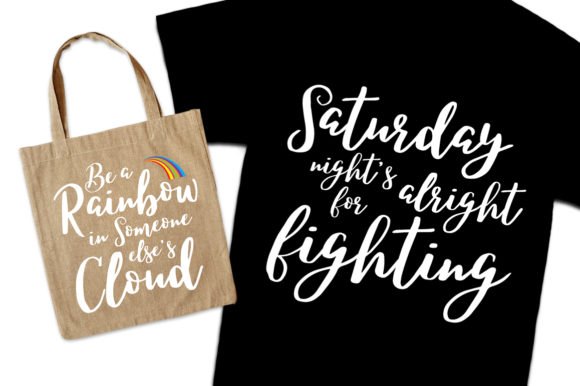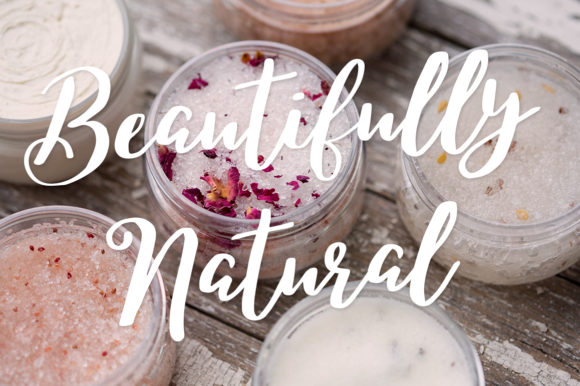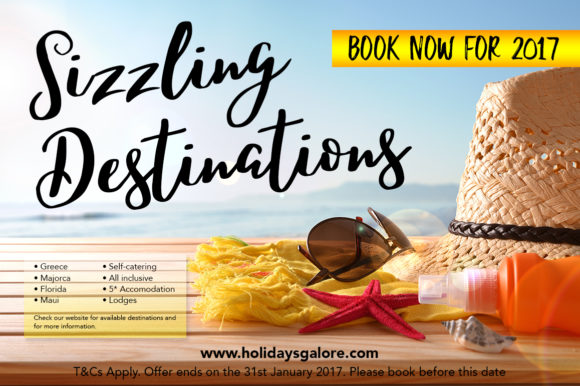
Caitlin Script Font
About Caitlin Script Font
This casual and bold brush script font is perfect for merchandise design such as t-shirts, mugs, tote bags and any advertising projects. It’s clear, smooth and easy to read!